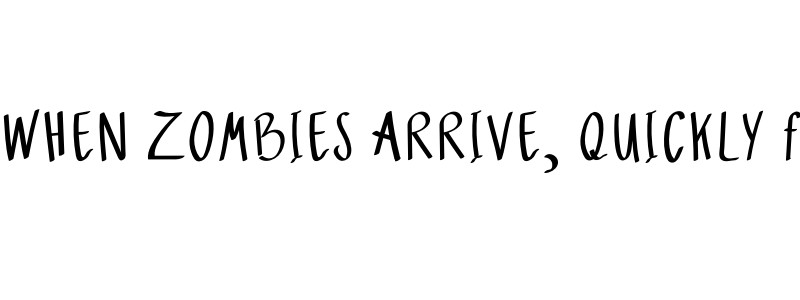
THE CUAN FREE FONT
Parangi Cuan
"The CUAN" font type captures the essence of classic elegance with a twist of modern flair. Its clean lines and balanced proportions give it a timeless appeal, while subtle design elements add a touch of energy and excitement. Whether you're looking to create an album cover that demands attention, a tagline that leaves a lasting impression, or titles that captivate your audience, this font type is the perfect choice.
• lowercase
• number and symbol
• uppercase